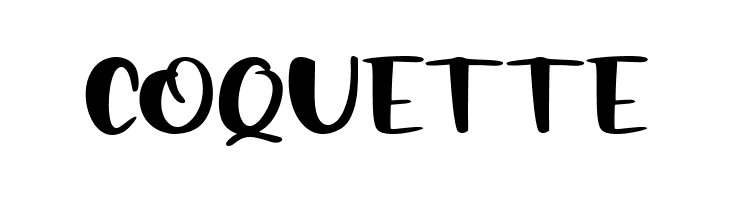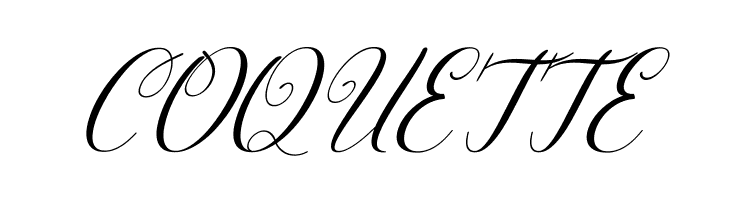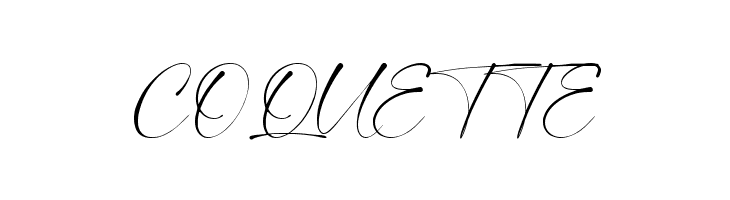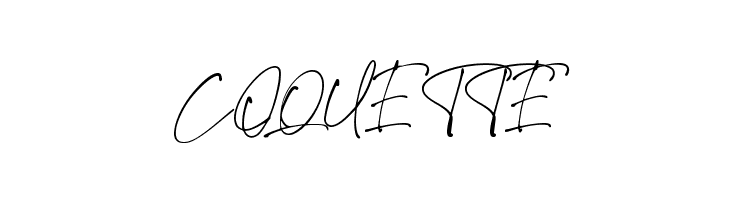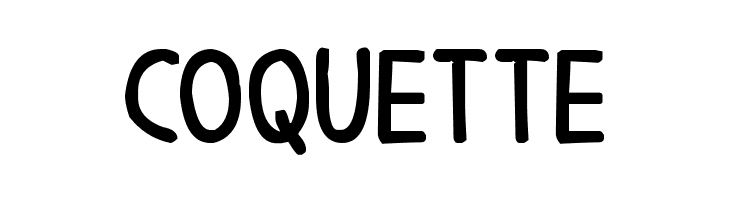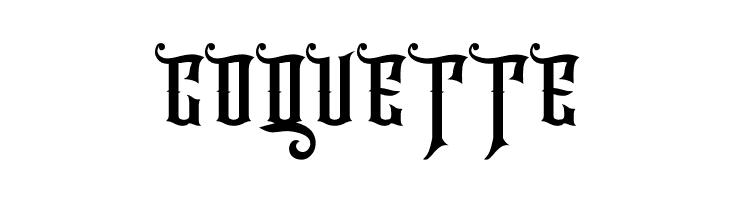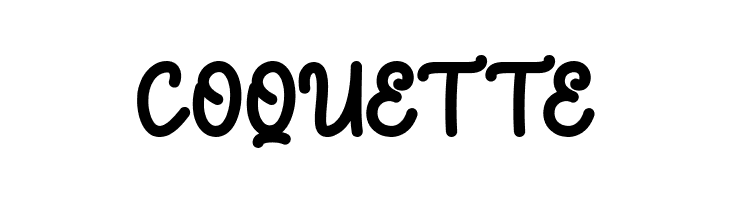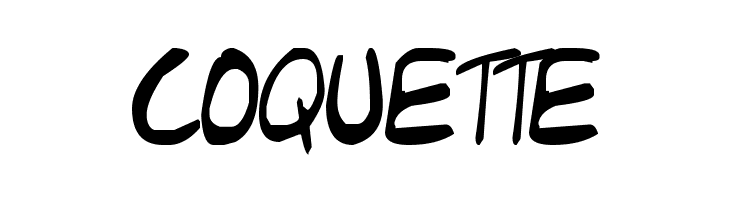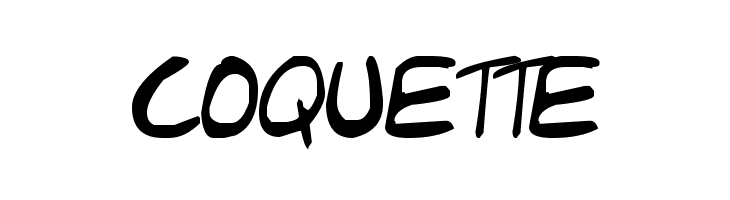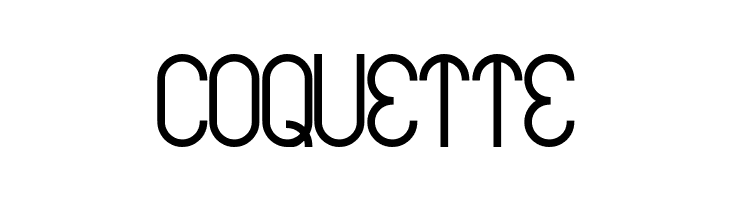
A lively and elegant script font with fluid, connected letterforms and a modern classic appeal.
A playful, rounded font with smooth curves and a friendly appearance.
A bold, playful font with thick outlines and a cartoonish style.
A playful, Halloween-themed font with hand-drawn, brush-like letters.
An elegant script font with flowing, cursive strokes and high contrast.
A playful, handwritten marker-style font with bold, rounded characters.
Energetic, handwritten script with tall, narrow forms and expressive strokes.
A bold, geometric font with a futuristic and modern design.
A jagged, edgy font with sharp, thorn-like characters.
A futuristic, geometric font with circular motifs and bold strokes.
A futuristic and geometric font with smooth curves and a modern aesthetic.
A playful and elegant script font with a handwritten style.
A futuristic and geometric font with clean lines and rounded edges.
A modern, geometric font with a futuristic and minimalistic design.
A bold, angular font with a futuristic and aggressive style.
A flowing, cursive script font with elegant curves and a hand-drawn look.
A bold, handwritten font with a casual and artistic style.
Handwritten cursive script font.
A casual, elegant handwritten font with fluid, connected characters.
A playful, handwritten font with a bold, whimsical style.
A playful, bold script font with a handwritten feel.
An elegant, flowing script font with graceful, interconnected characters.
An elegant, flowing script font with a sophisticated and graceful appearance.
Playful, bold handwritten font.
A bold, vintage-inspired serif font with high contrast and strong serifs.
A bold, italic, and modern font with a futuristic and dynamic style.
A modern, hollow, outlined font with a futuristic and geometric style.
A modern, hollow, inverse font with geometric and futuristic design.
A modern, geometric font with a futuristic and symmetrical design.
A modern, geometric font with clean, continuous lines and a minimalist aesthetic.
A modern, geometric font with thin, uniform lines and a minimalist style.
A decorative font with intricate, nature-inspired patterns and a unique organic style.